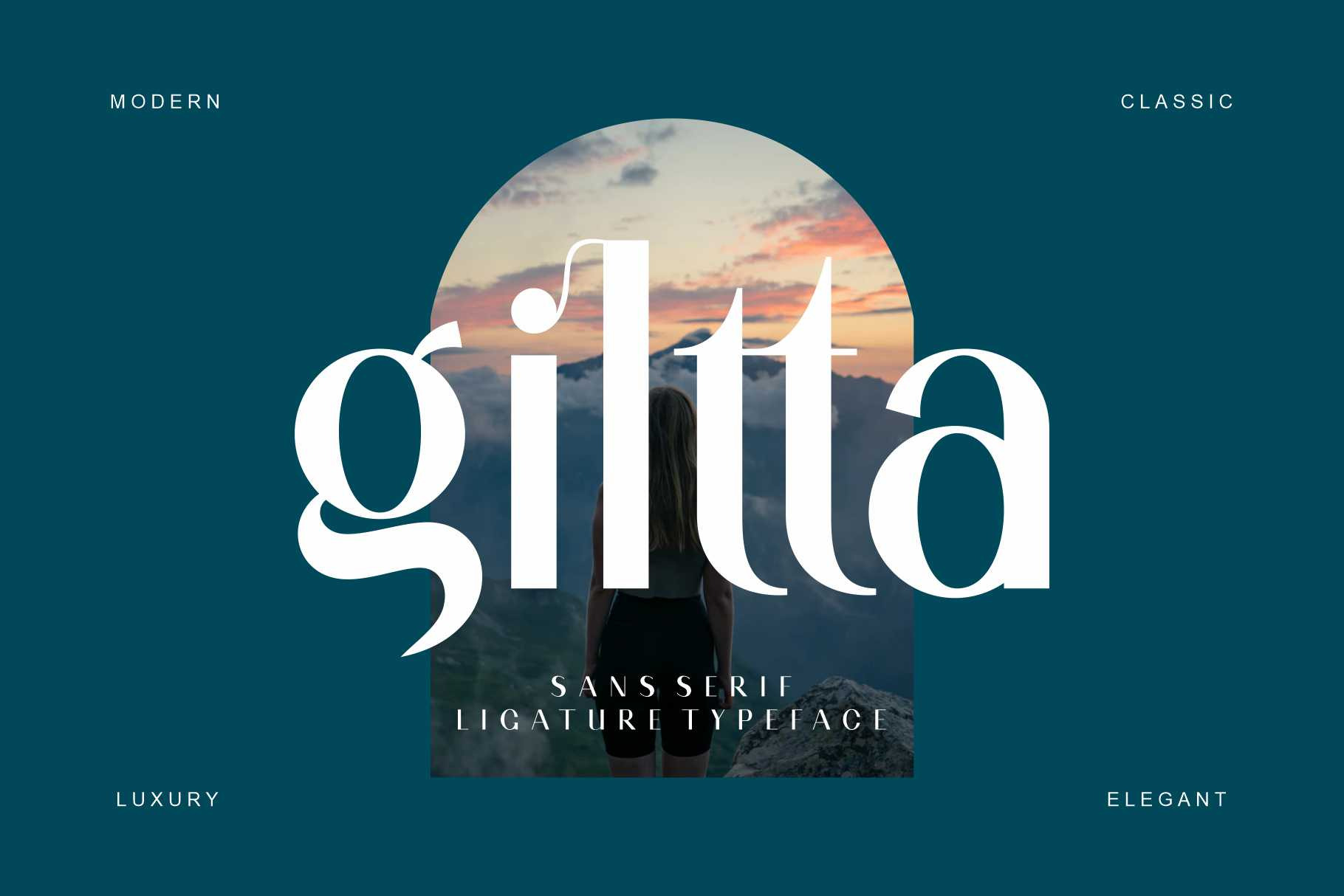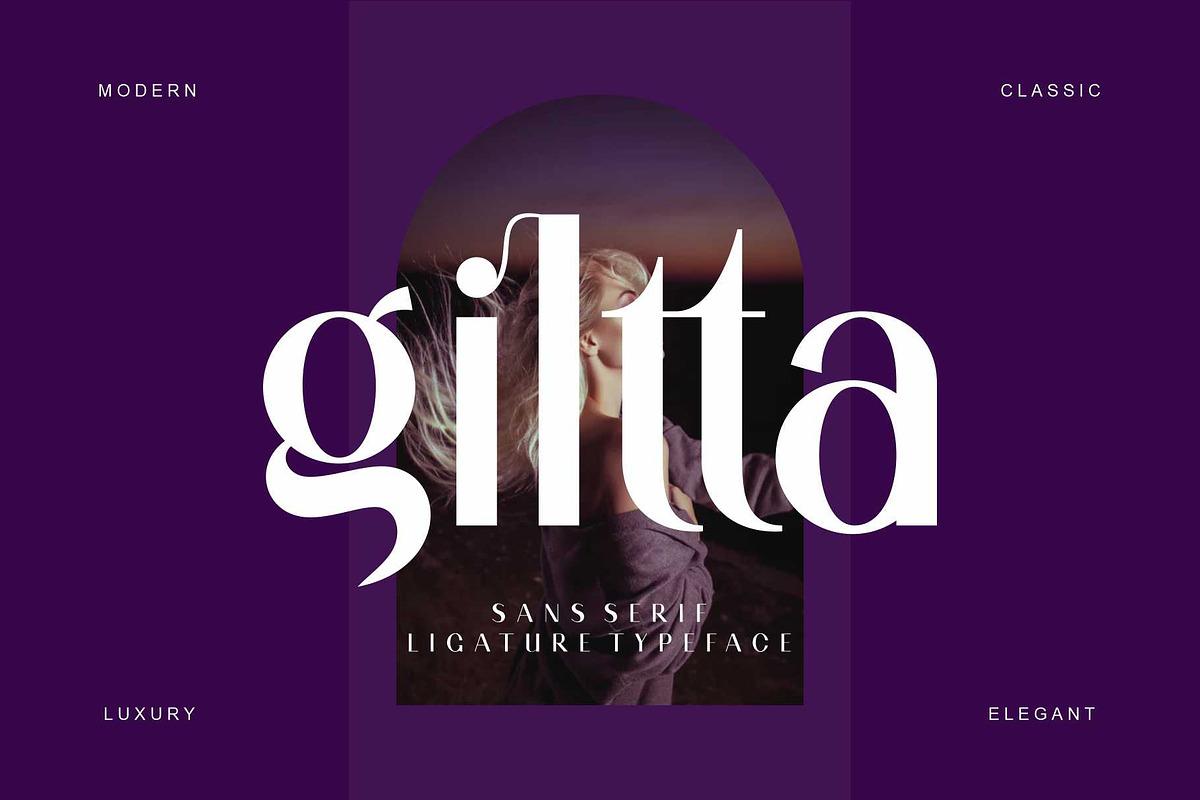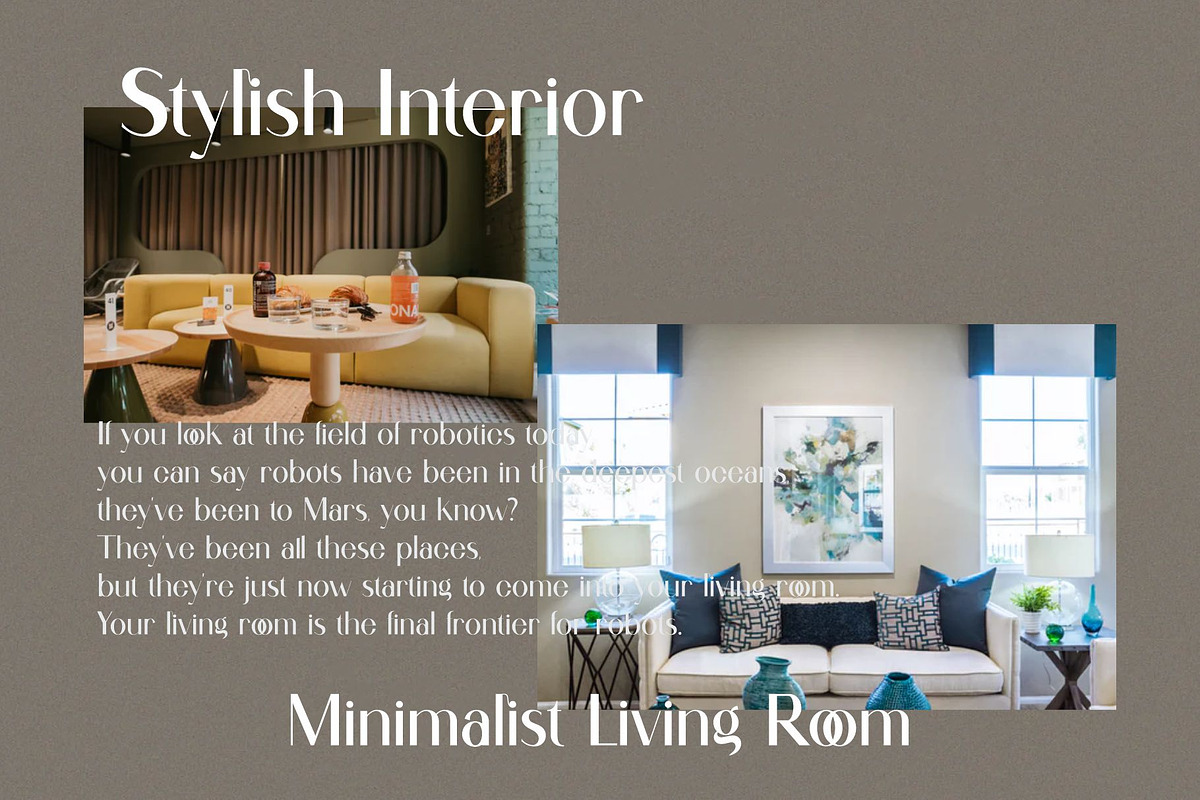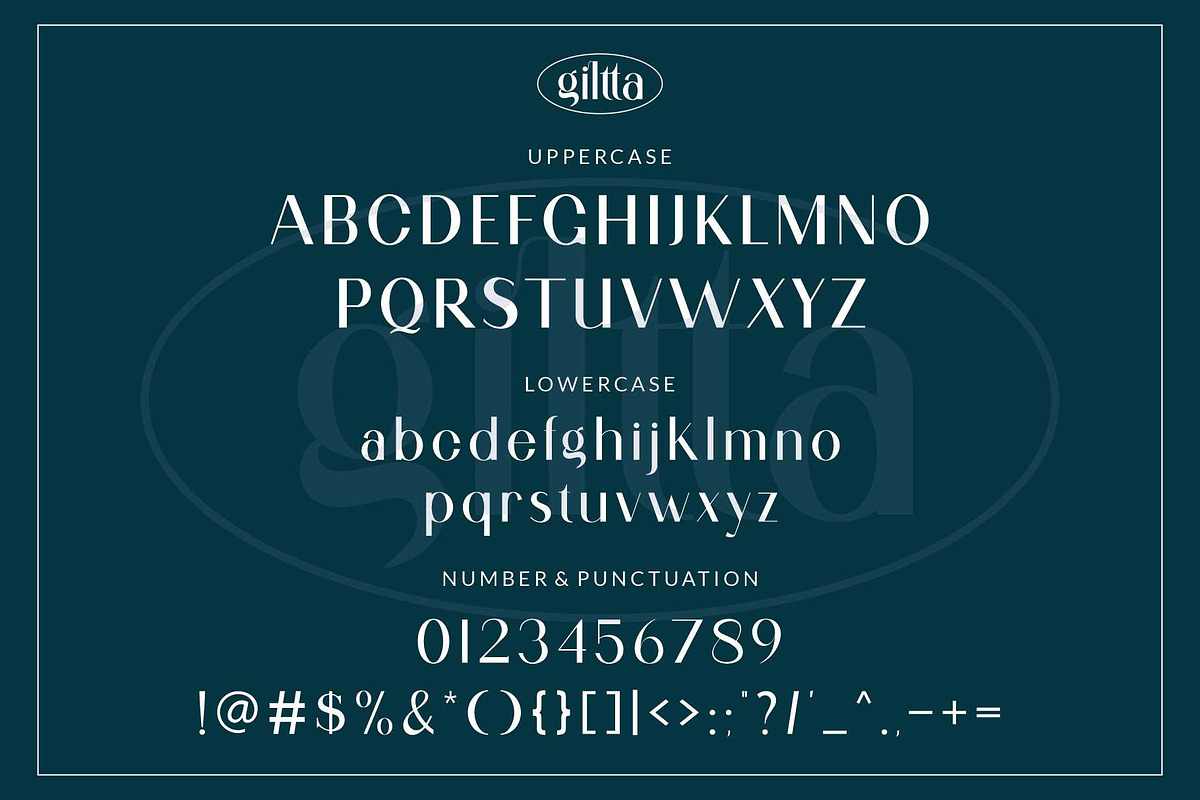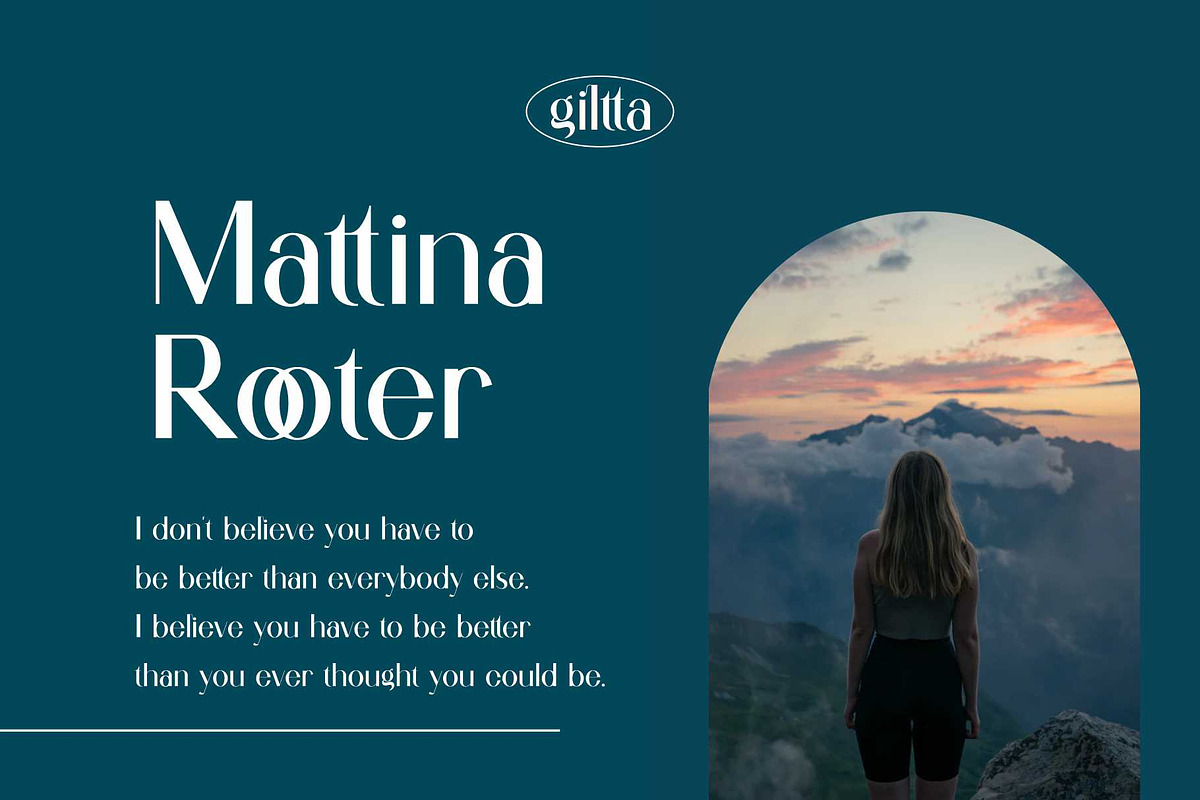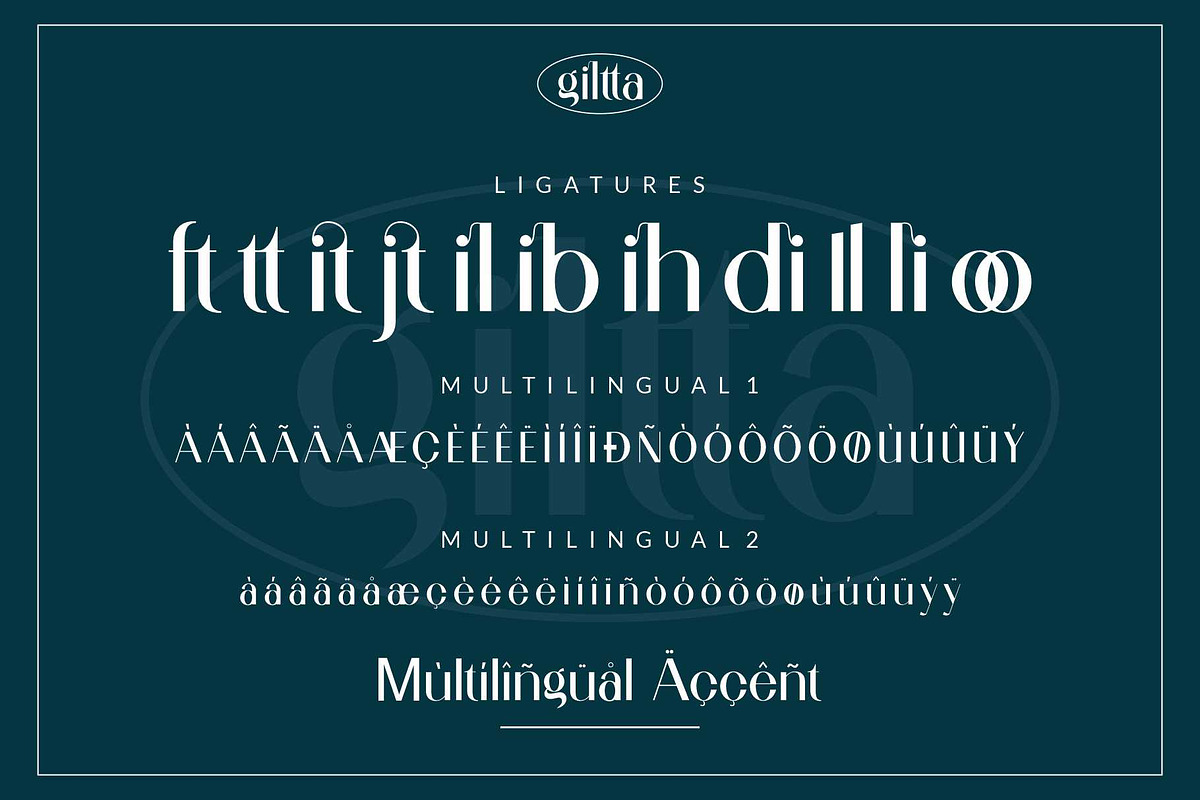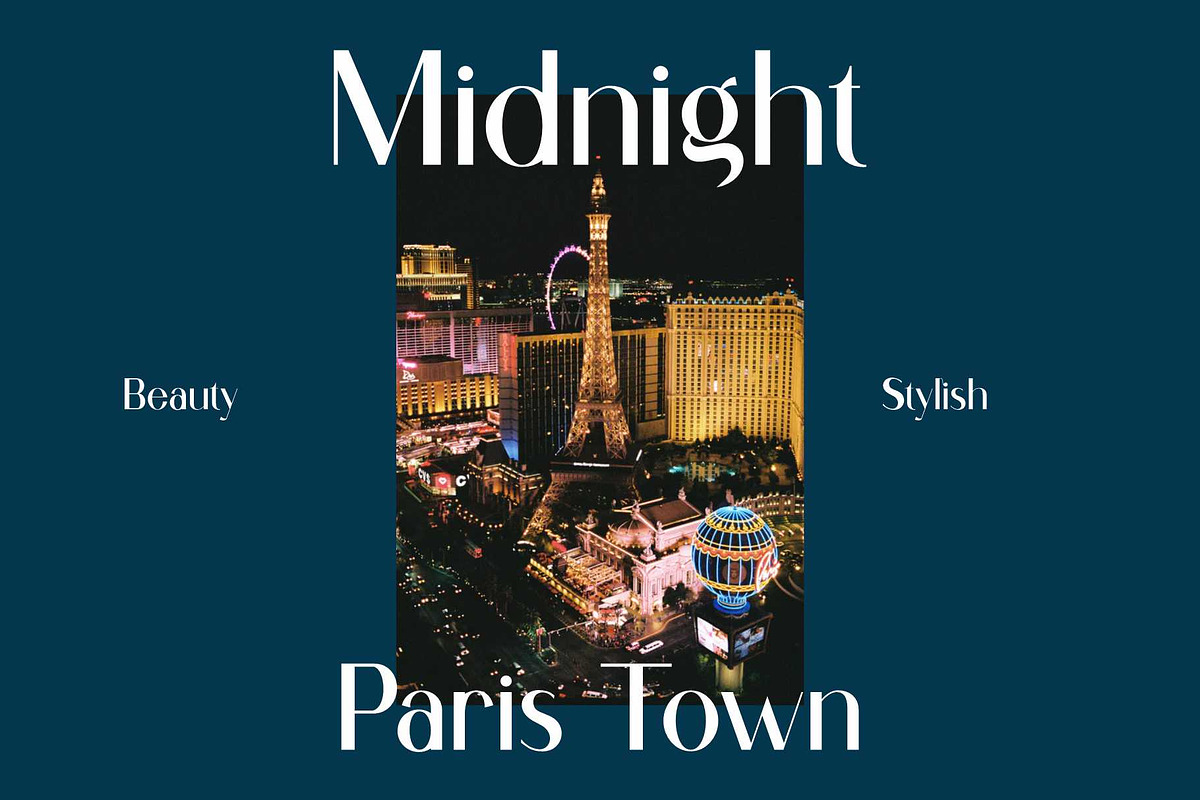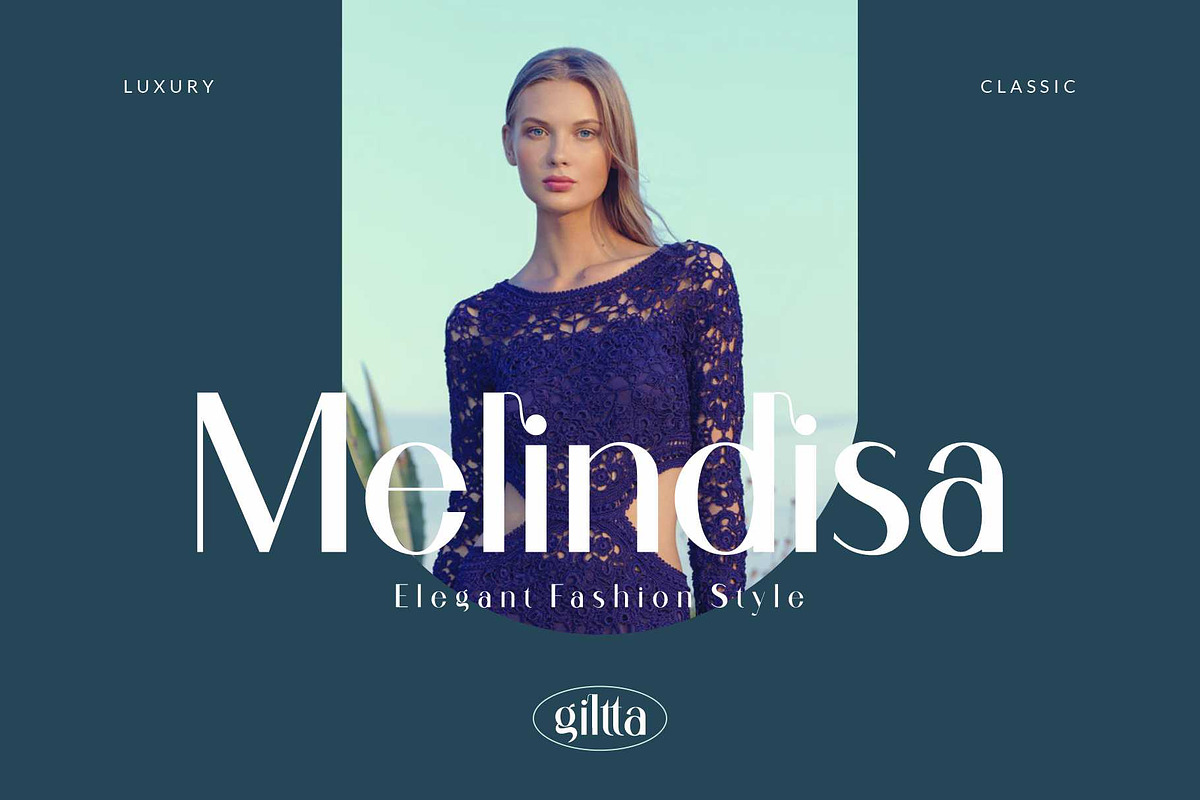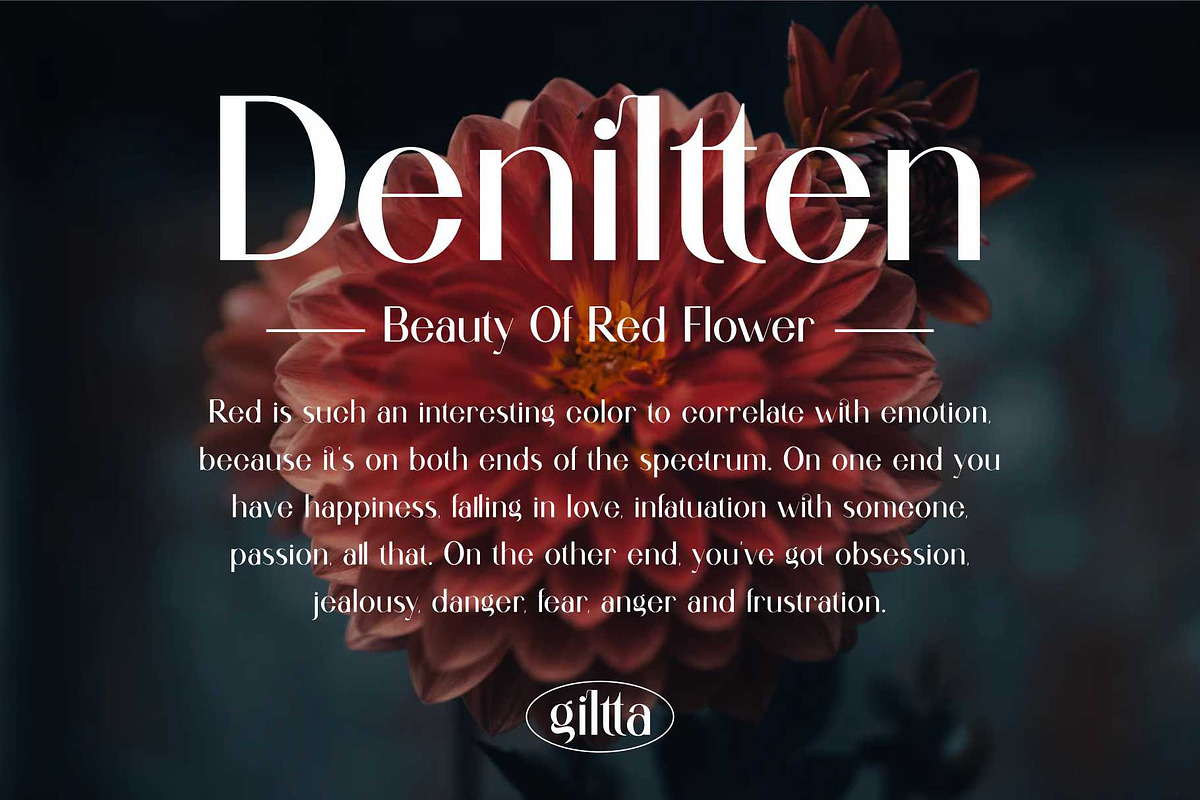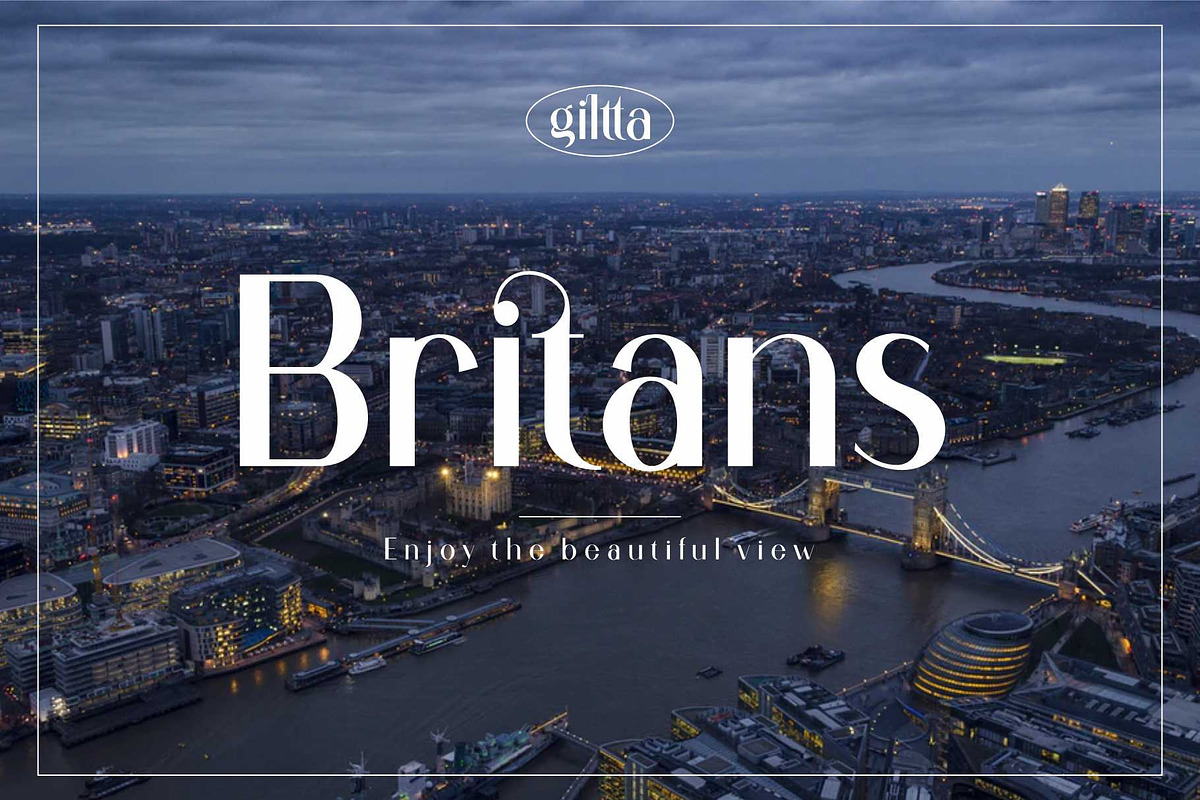
giltta sans serif font
giltta sans serif with simple, clean, and visual elegance. Specially designed for elegant-themed projects, perfectly suitable for creating simple, clean, lifestyle design such as logos, title, and magazine and more.